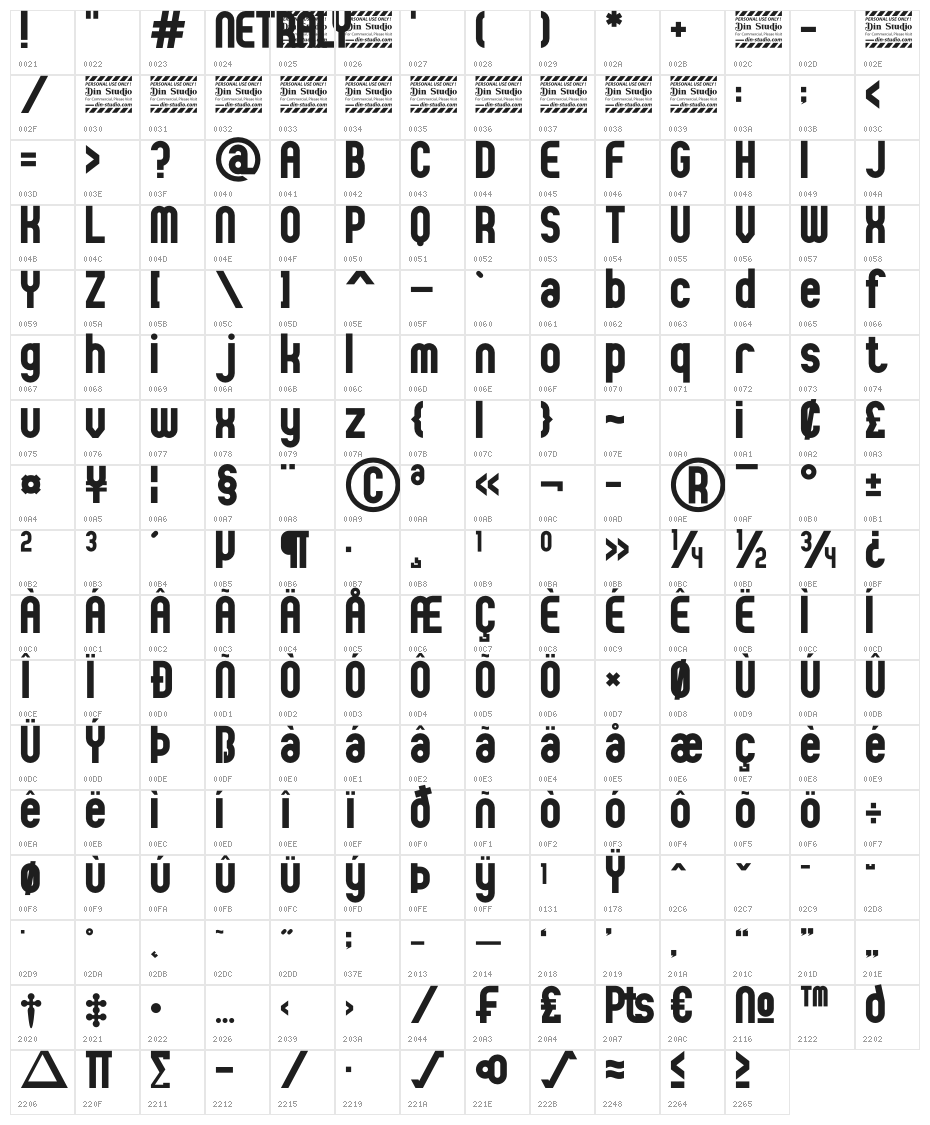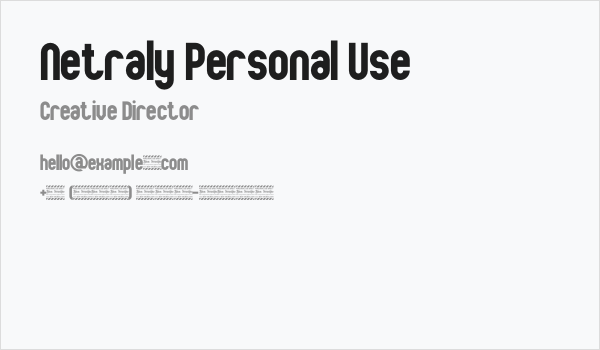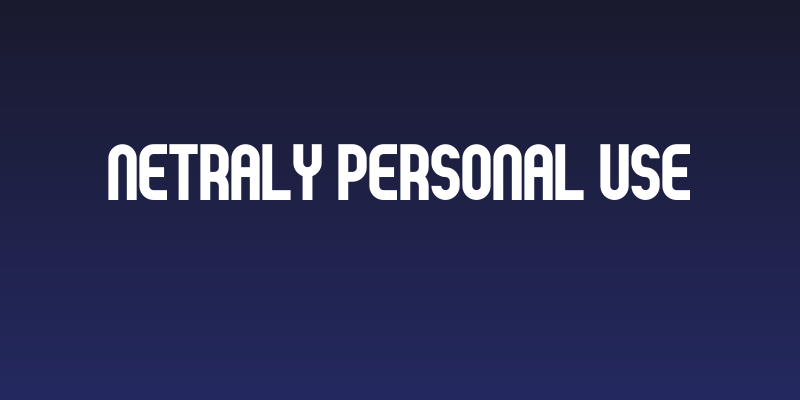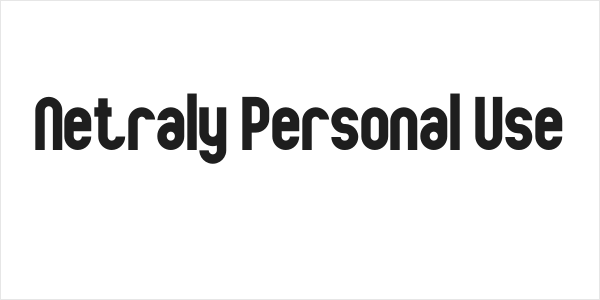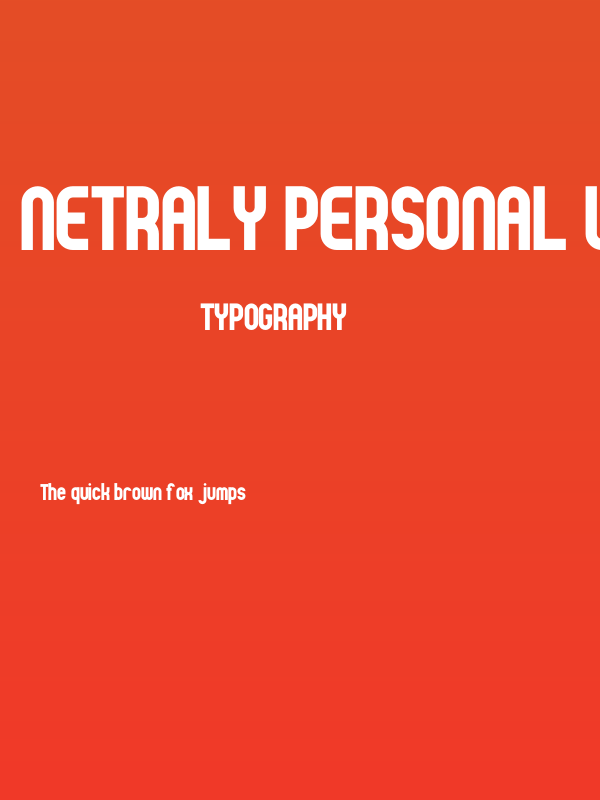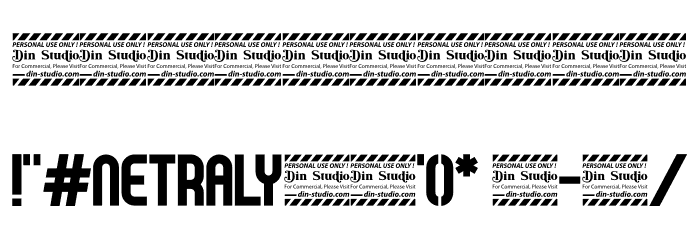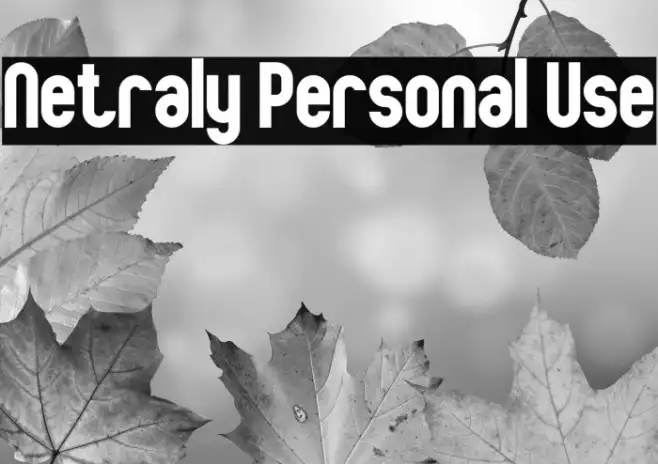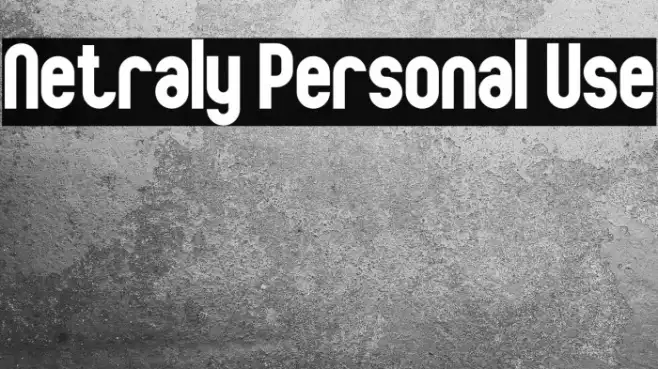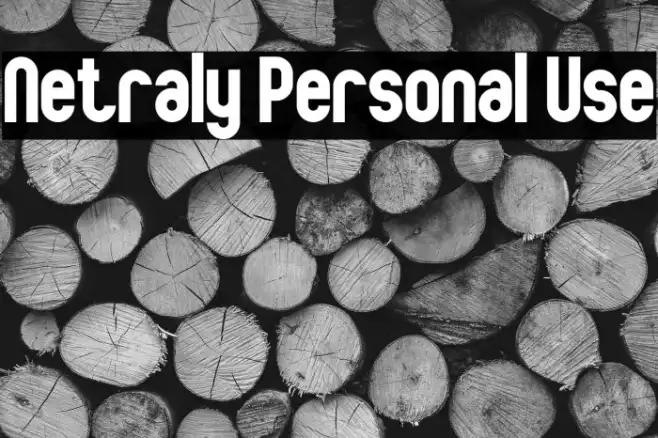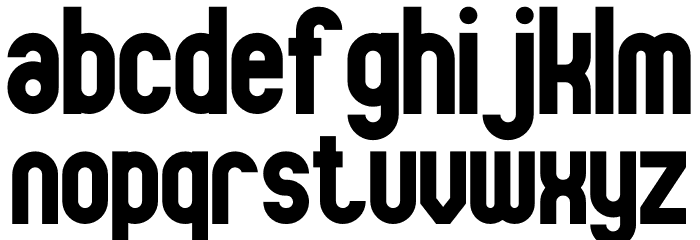
Netraly Personal Use Font
Netraly Personal Use Description
This font features a bold and impactful design with a modern aesthetic. The uppercase letters are strong and geometric, with a slightly condensed appearance that enhances their presence. The lowercase letters maintain a consistent style, offering a harmonious blend with the uppercase. The numbers and special characters are designed to match the boldness and clarity of the alphabet, ensuring readability and visual appeal. The overall style is clean and contemporary, making it suitable for various design projects that require a strong visual statement.
| Proposed Projects | Ideal for branding, posters, headlines, and any design requiring a strong, modern typeface. |